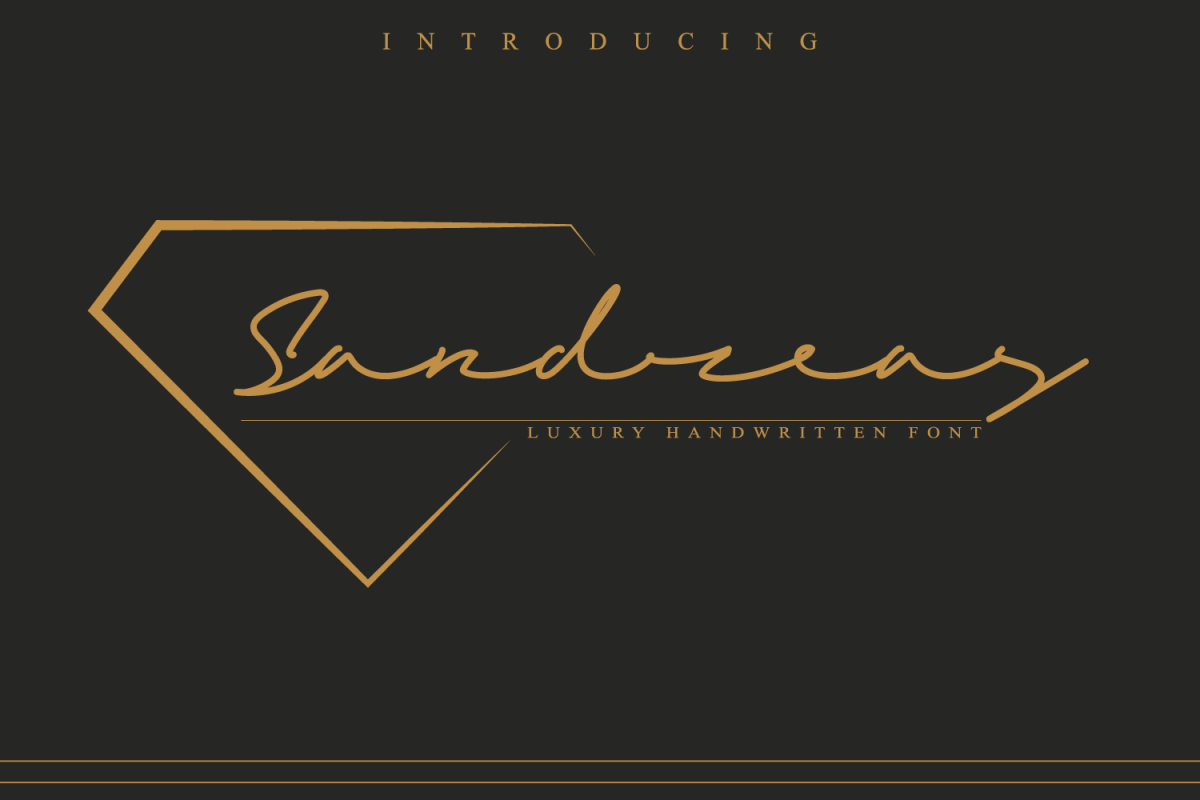
Sandreas
Sandreas Signature
Sandreas Signature is an elegant and classy monoline script font. It is perfect for all your upcoming projects!
Sandreas Signature: is perfect for branding projects, logo, wedding designs, social media posts, advertisements, product packaging, product designs, label, photography, watermark, invitation, stationery, and any projects that need handwriting taste.
• More than 242 of glyphs
• Tons of Ligature